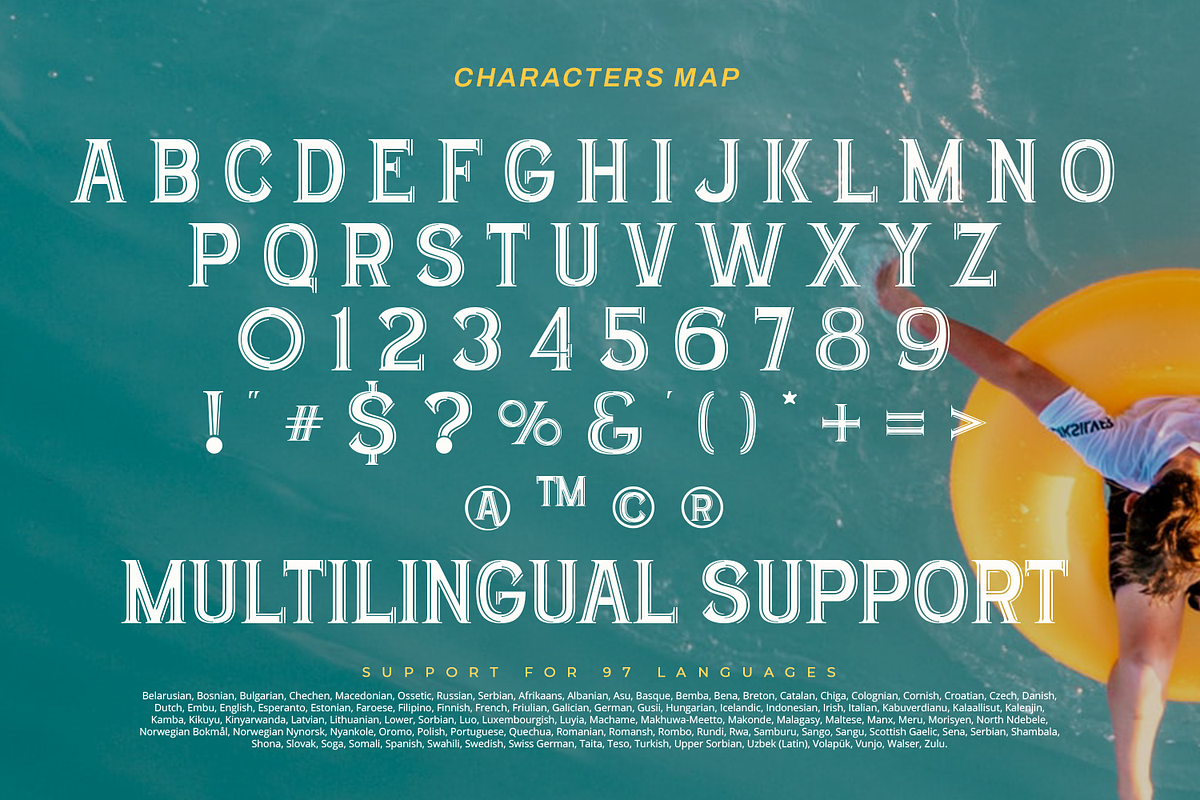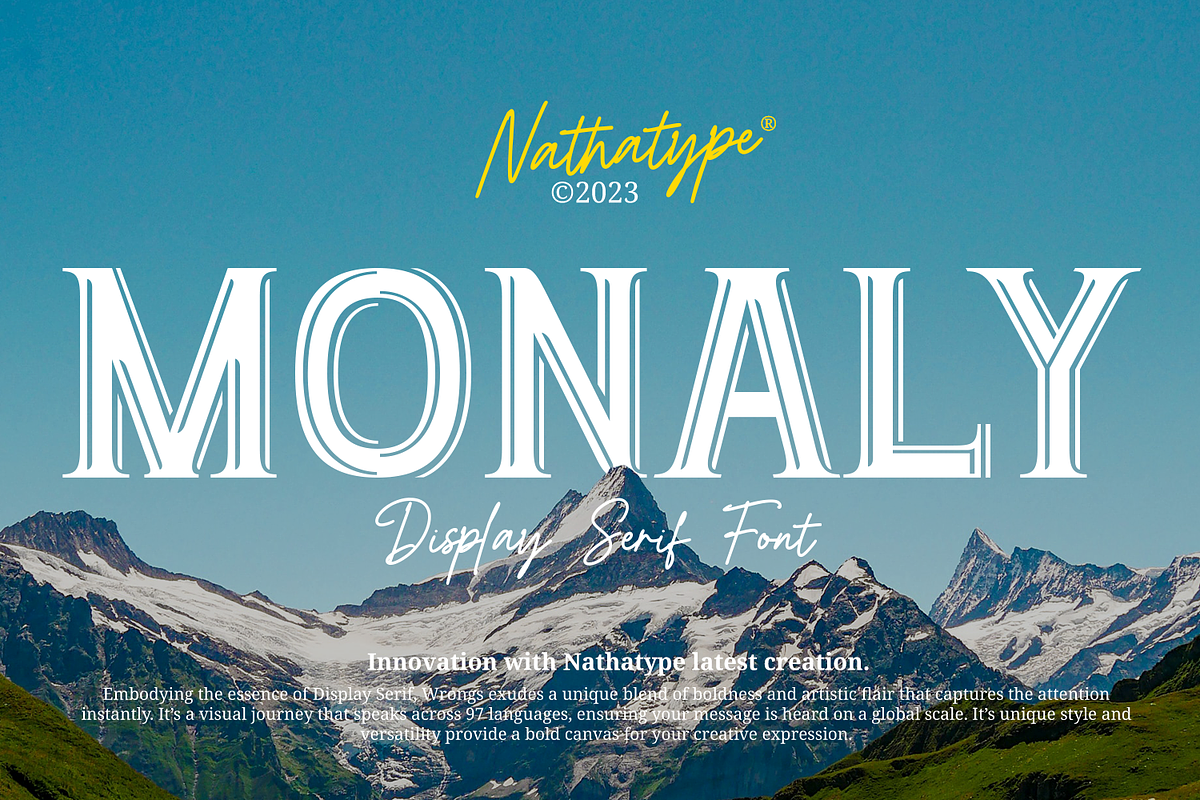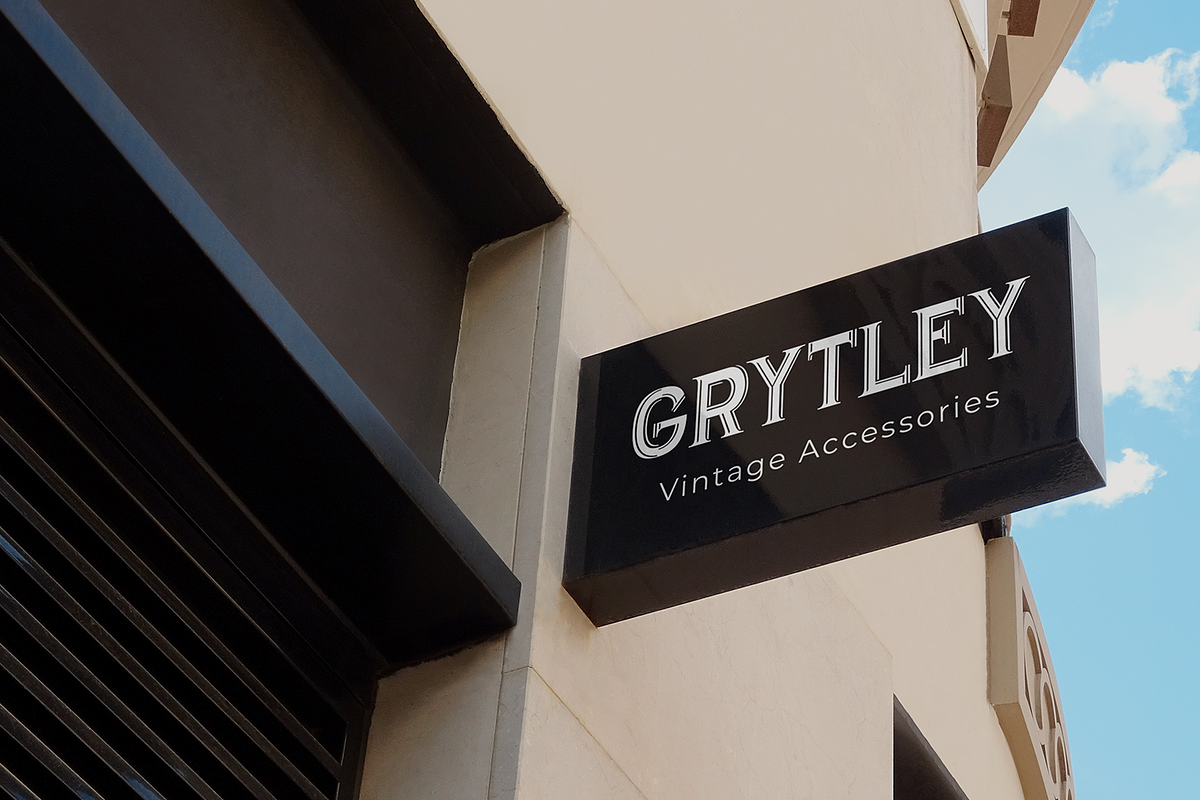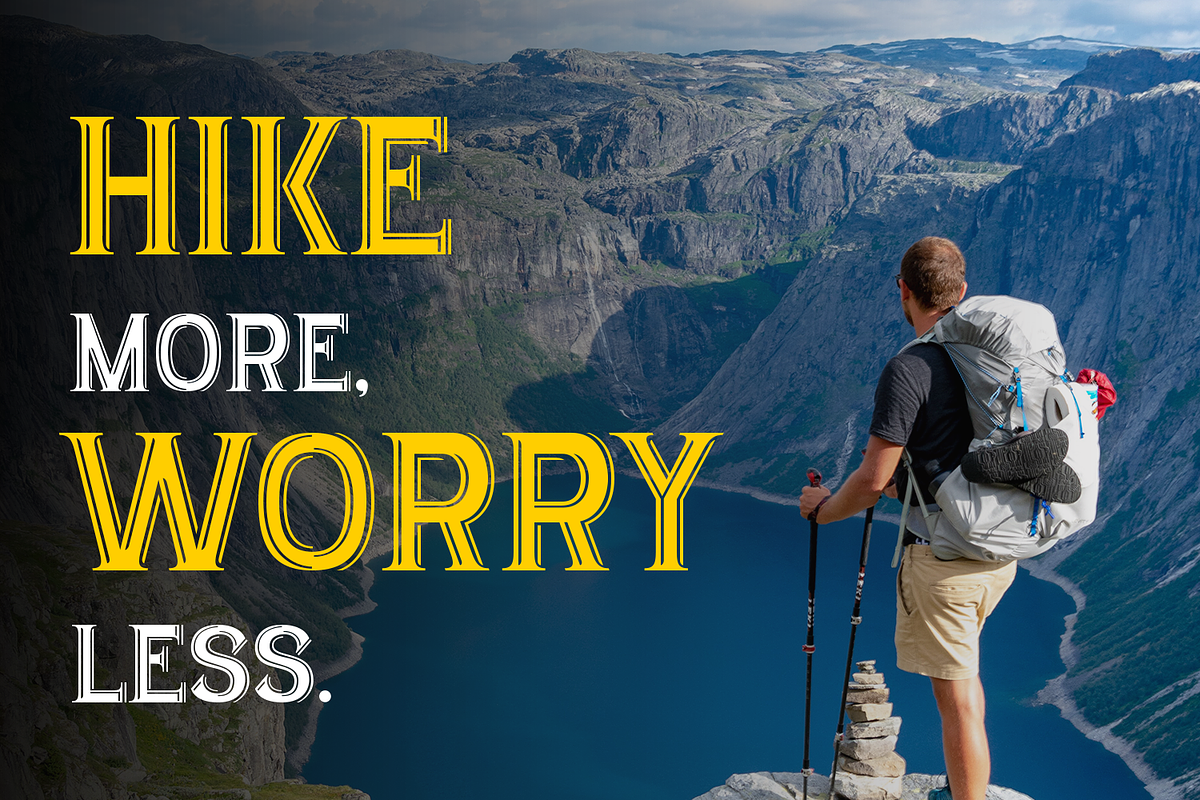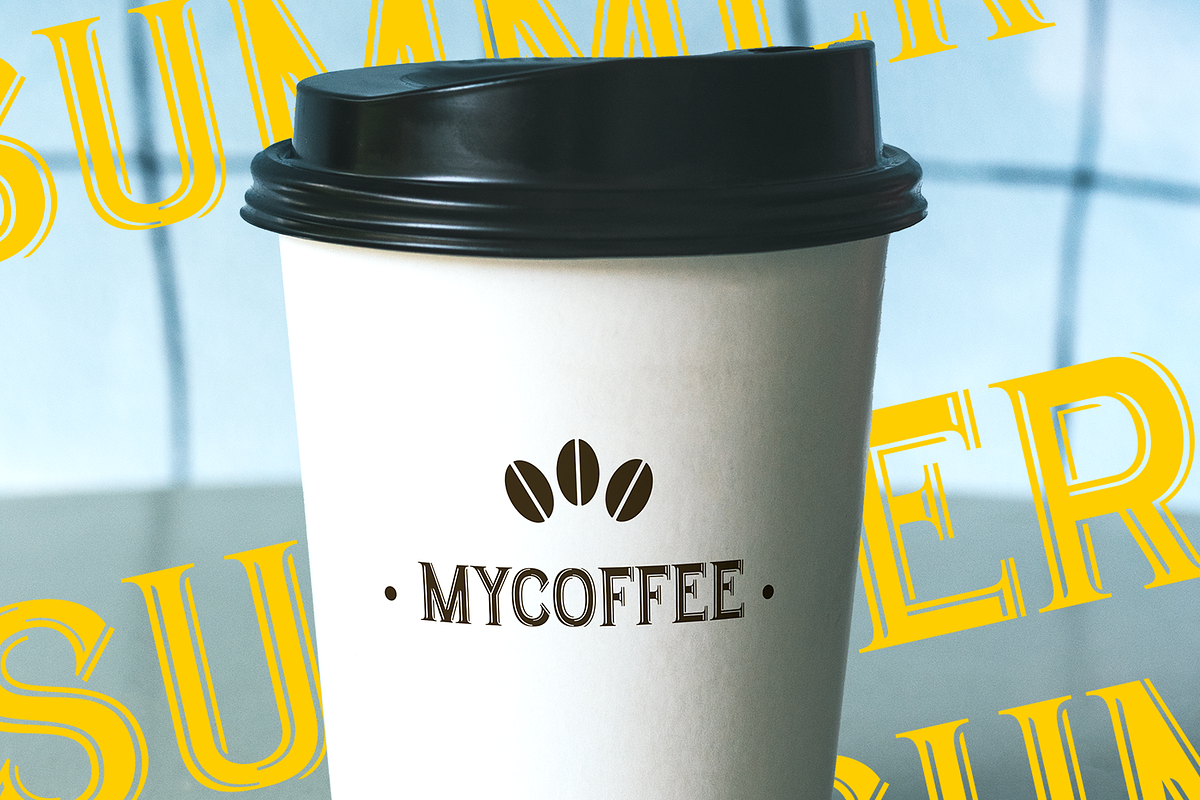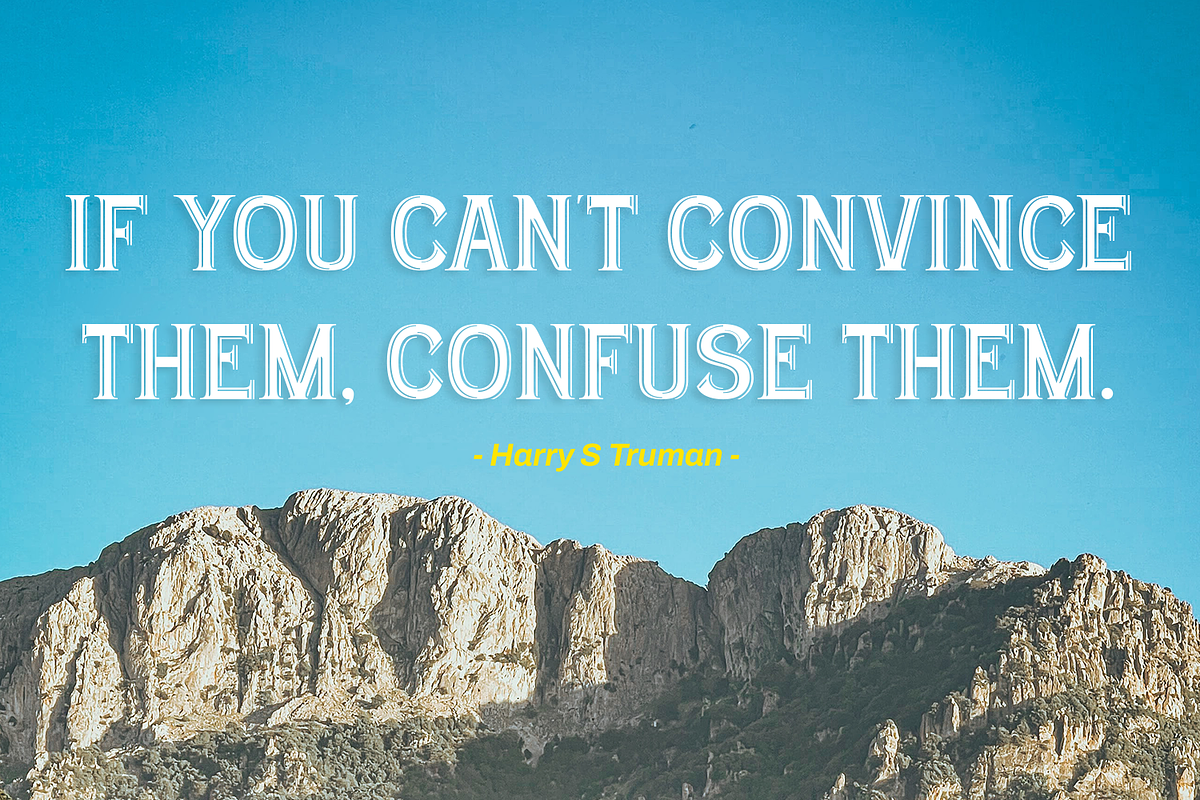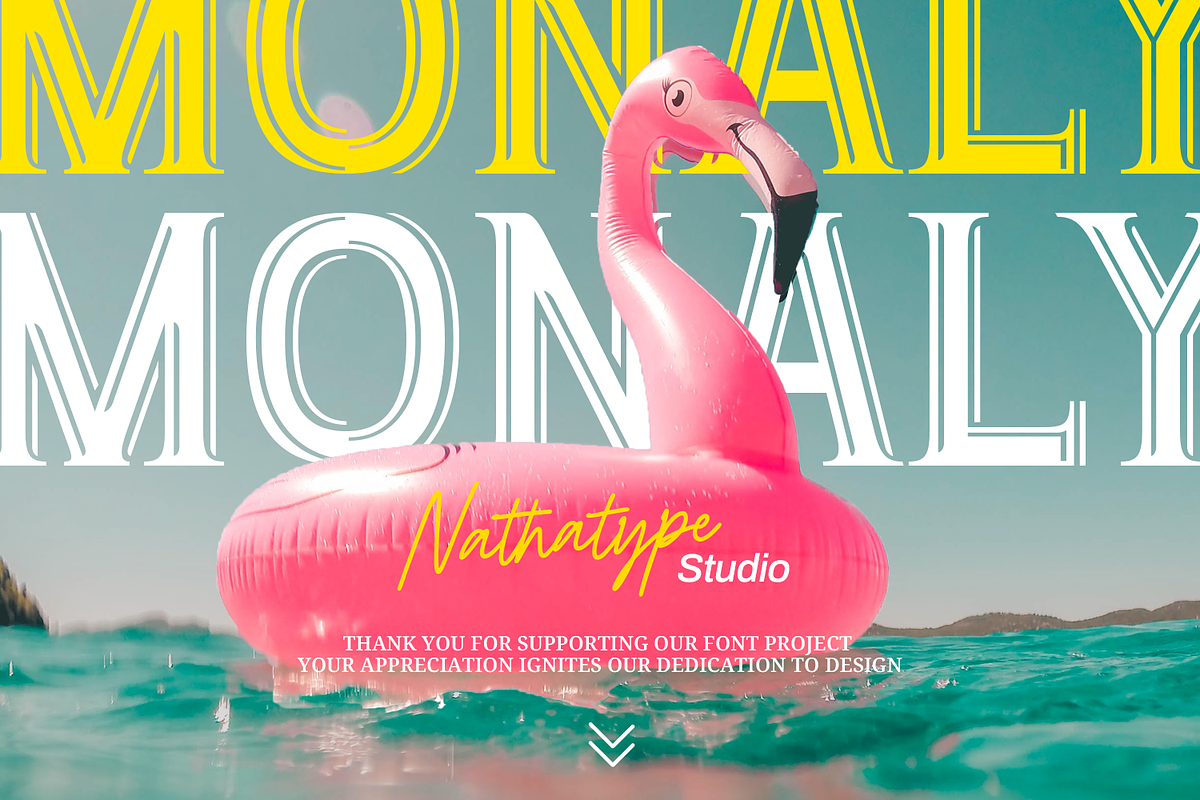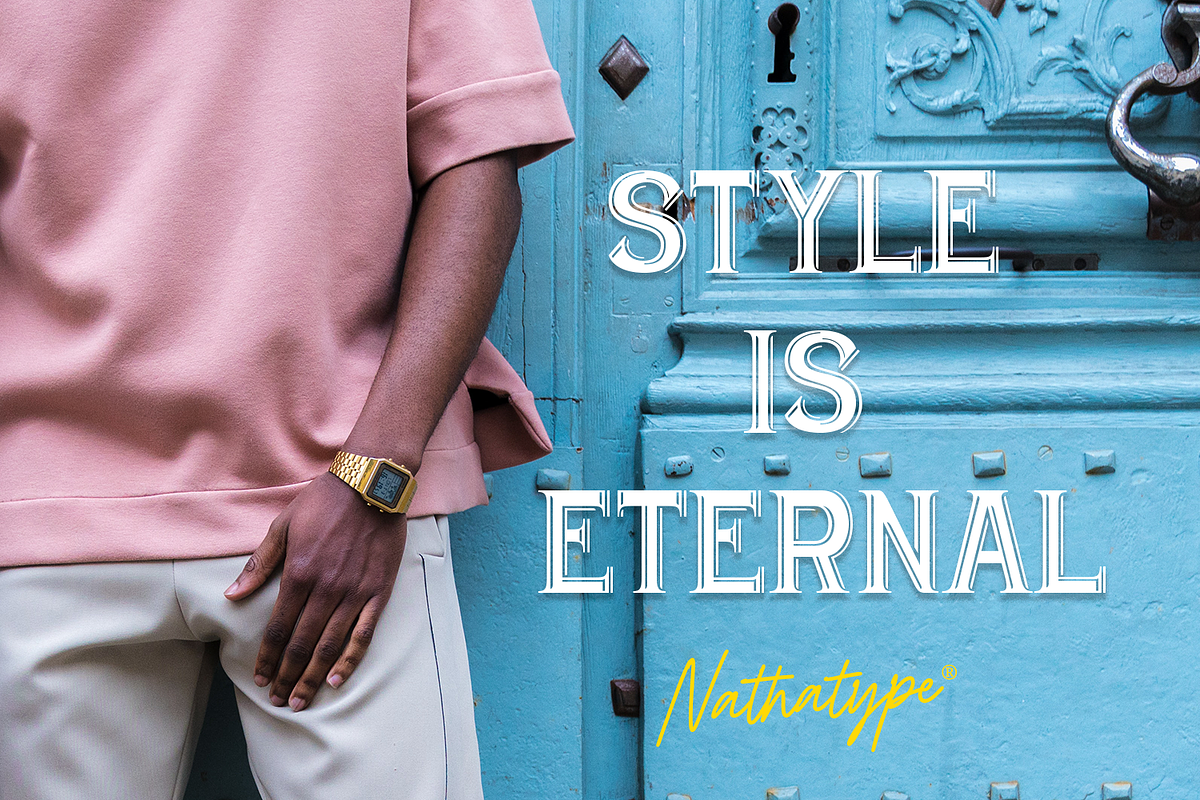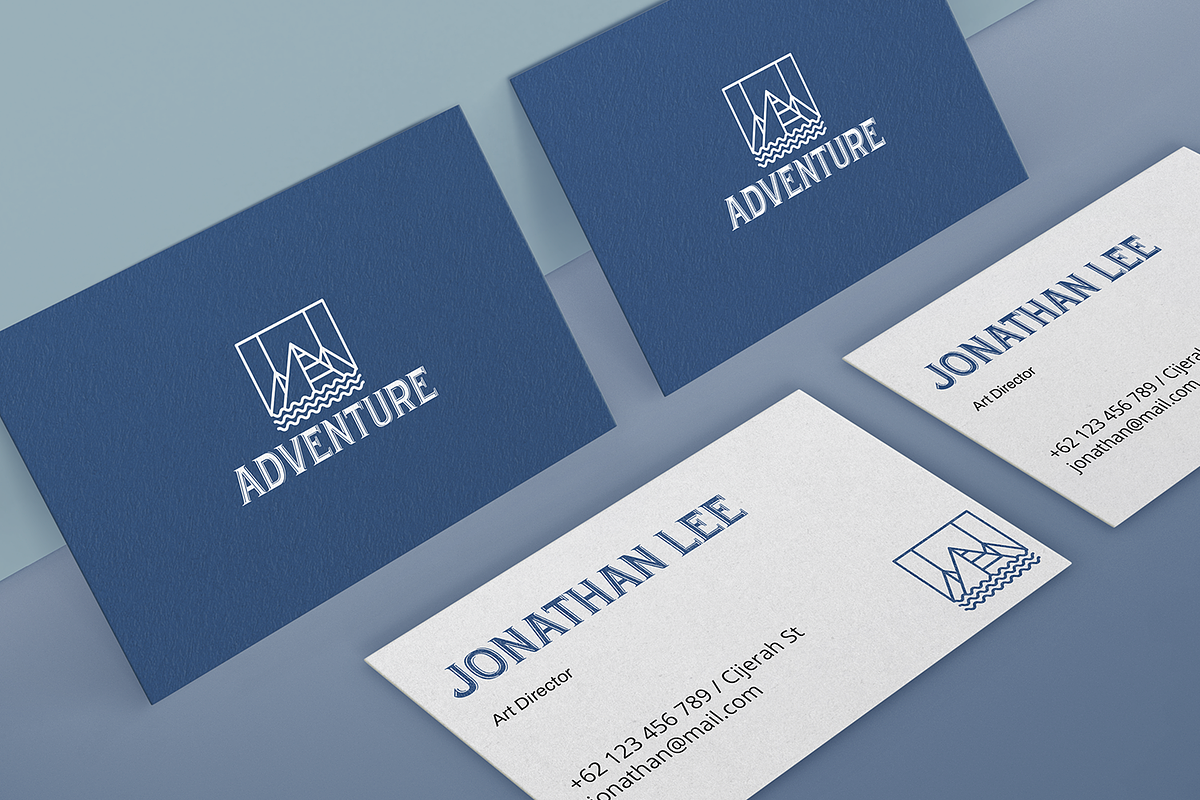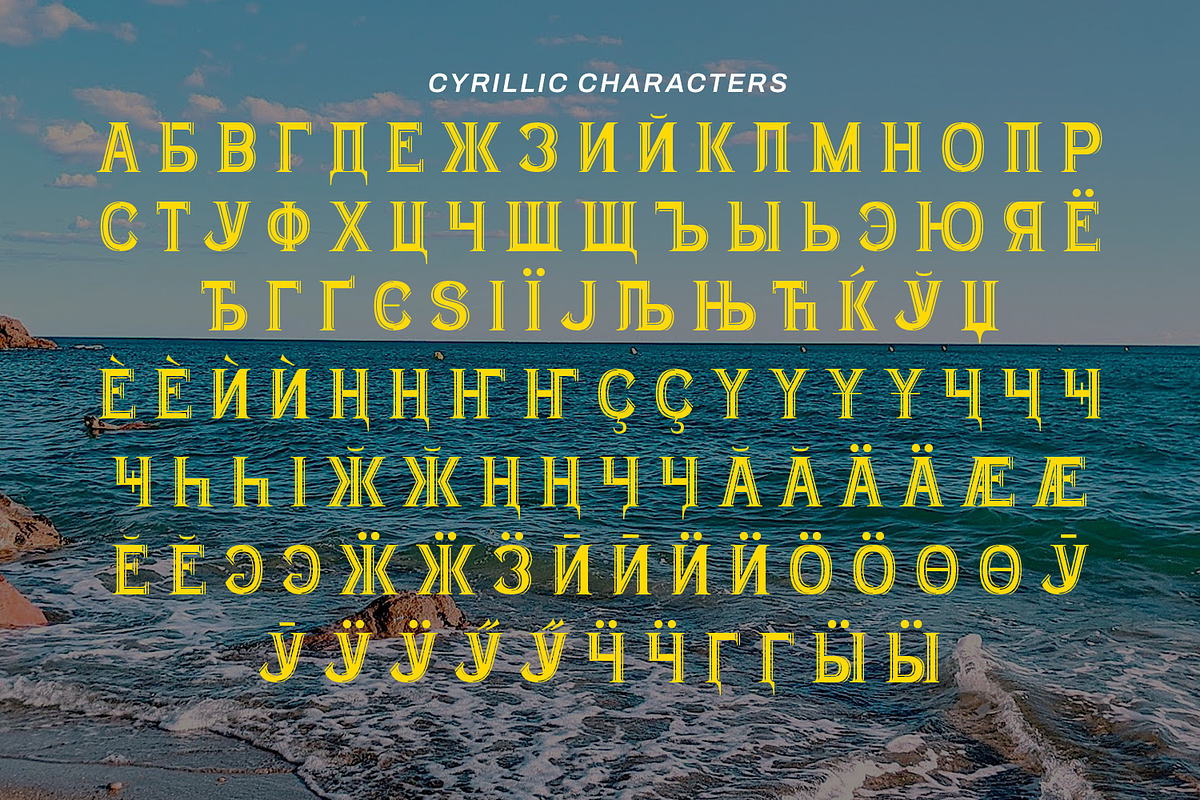
Monaly
Monaly is a display serif font. This font is all about making an impact. It is perfect for grabbing the viewer's eye and leaving a lasting impression. Designed with large, heavy letters, Monaly is a display font that makes a bold statement. Each letter is meticulously crafted with strong, confident serifs that lend a sense of grandeur and sophistication to your design projects.
The artistic flair of Monaly is evident in its carefully balanced letterforms, which blend tradition with a contemporary edge. The font's heavy weight adds a sense of weightiness and substance, making it a reliable choice for conveying gravitas and authority in your designs. Enjoy the features here.
Monaly fits in headlines, logos, posters, flyers, invitations, branding materials, print media, editorial layouts, and many more designs. Find out more ways to use this font by taking a look at the font preview.